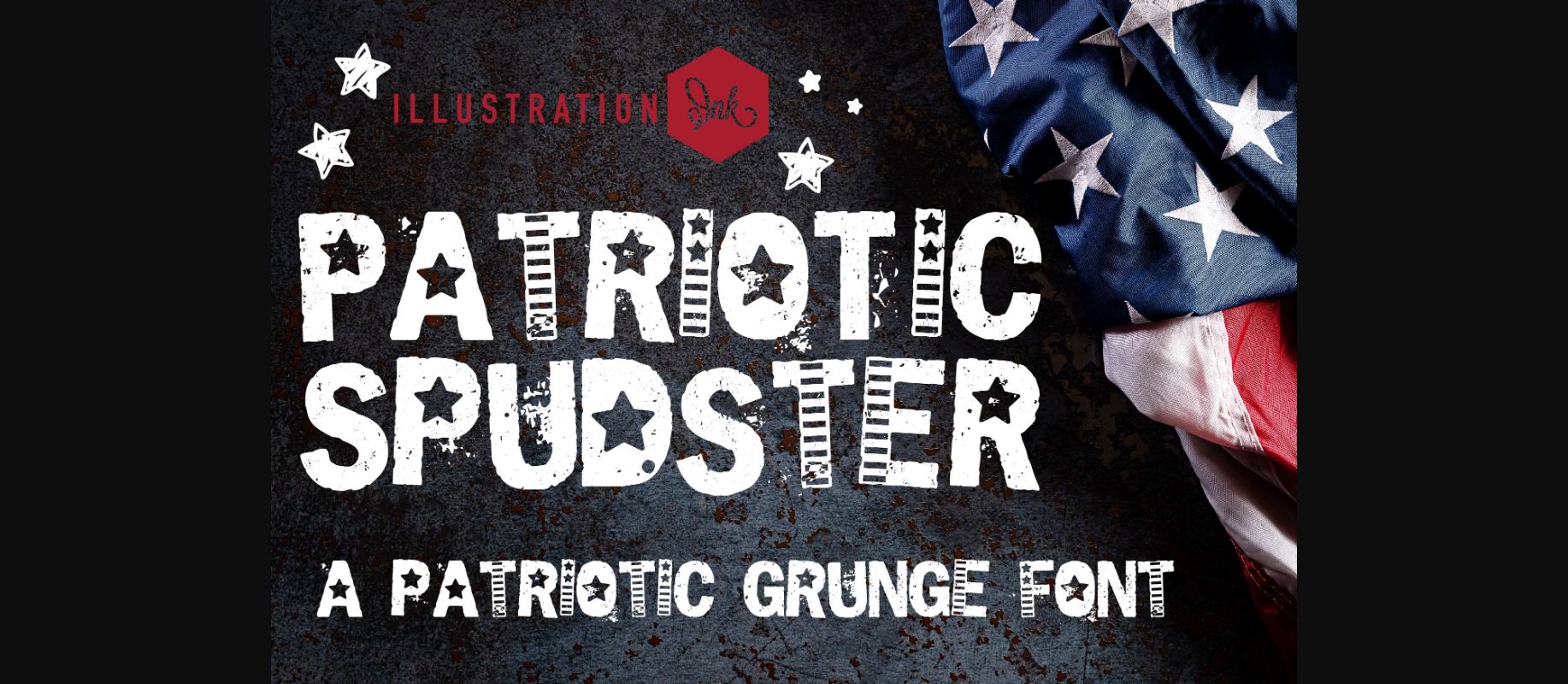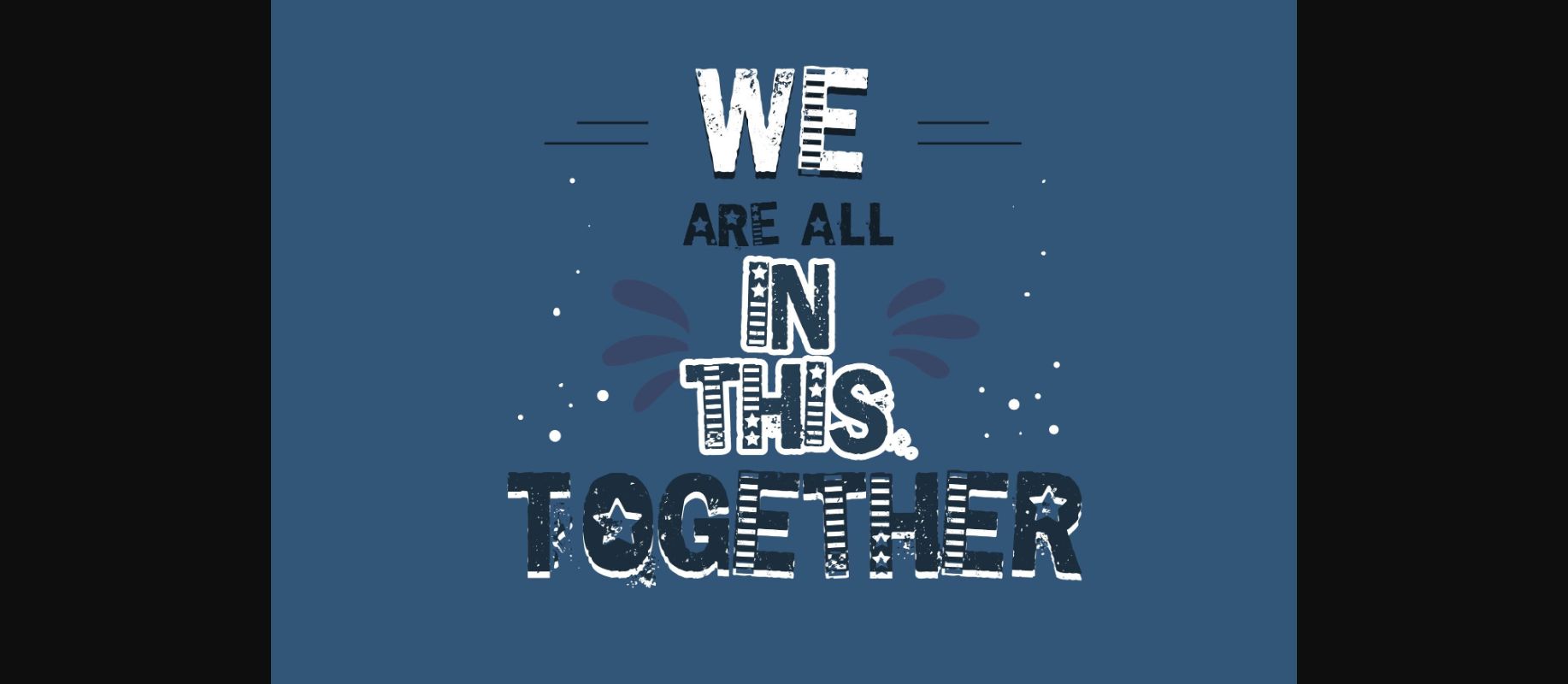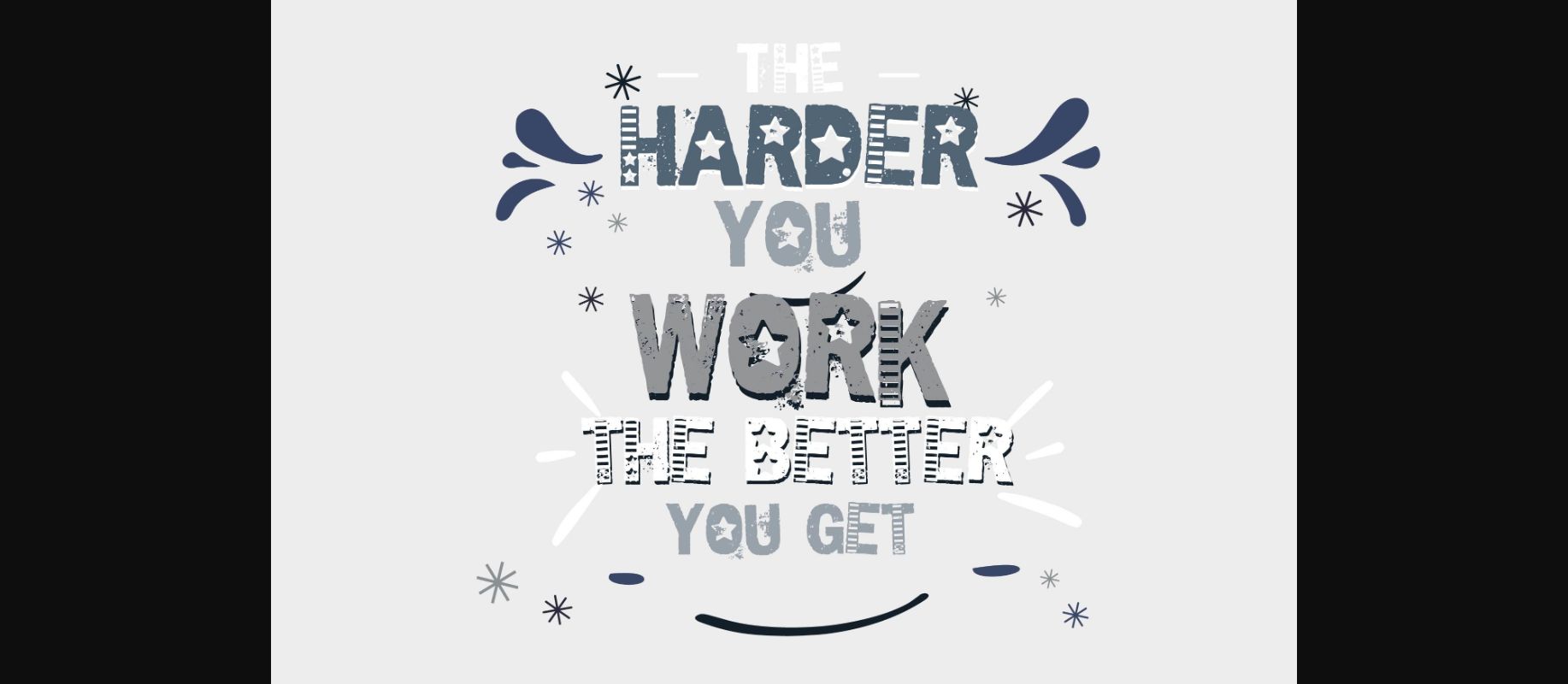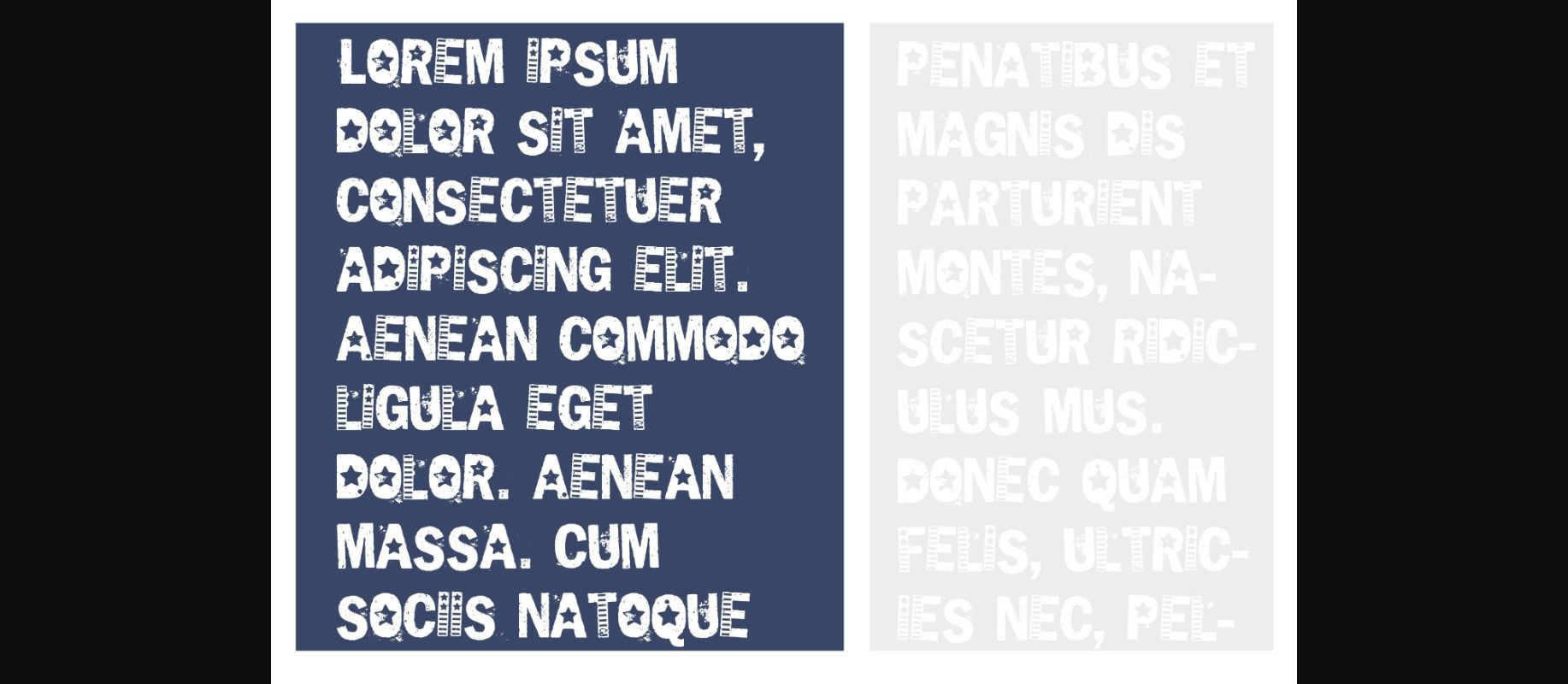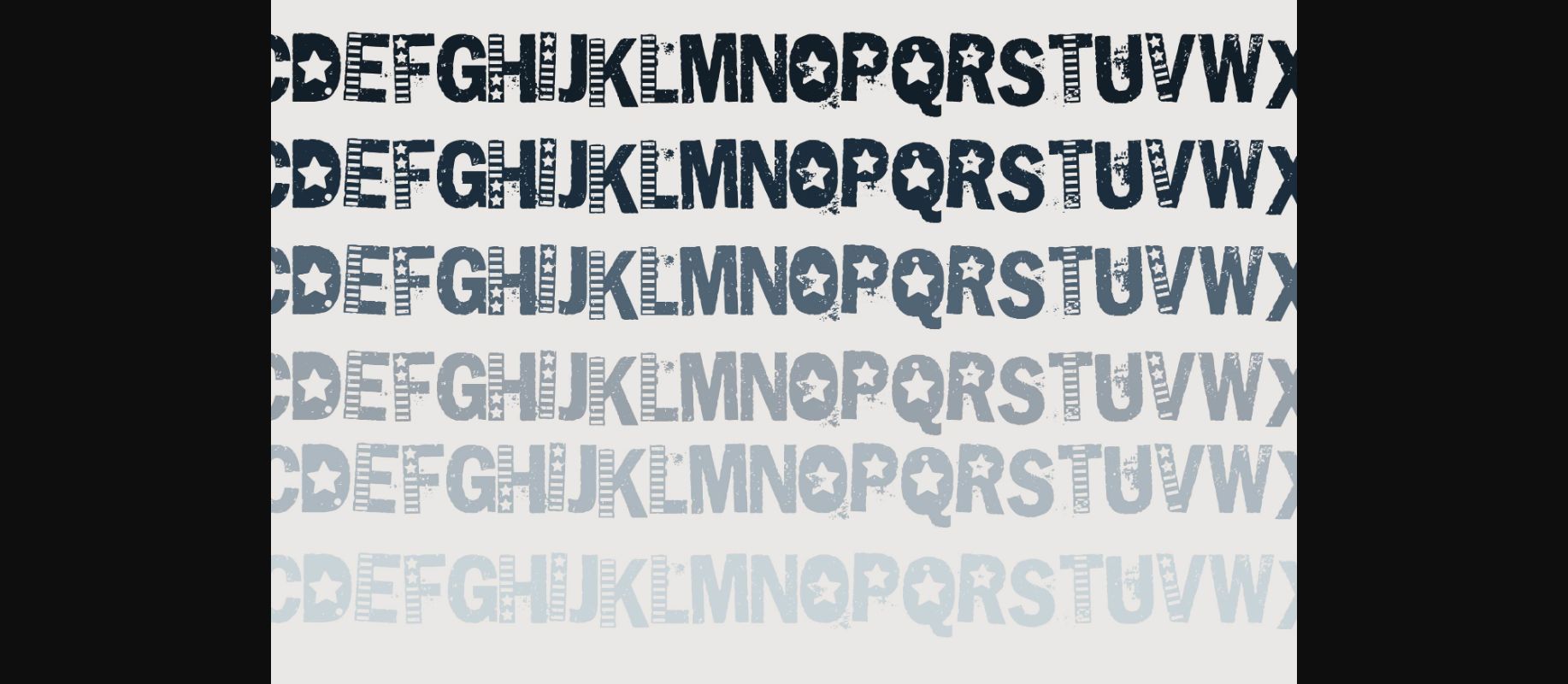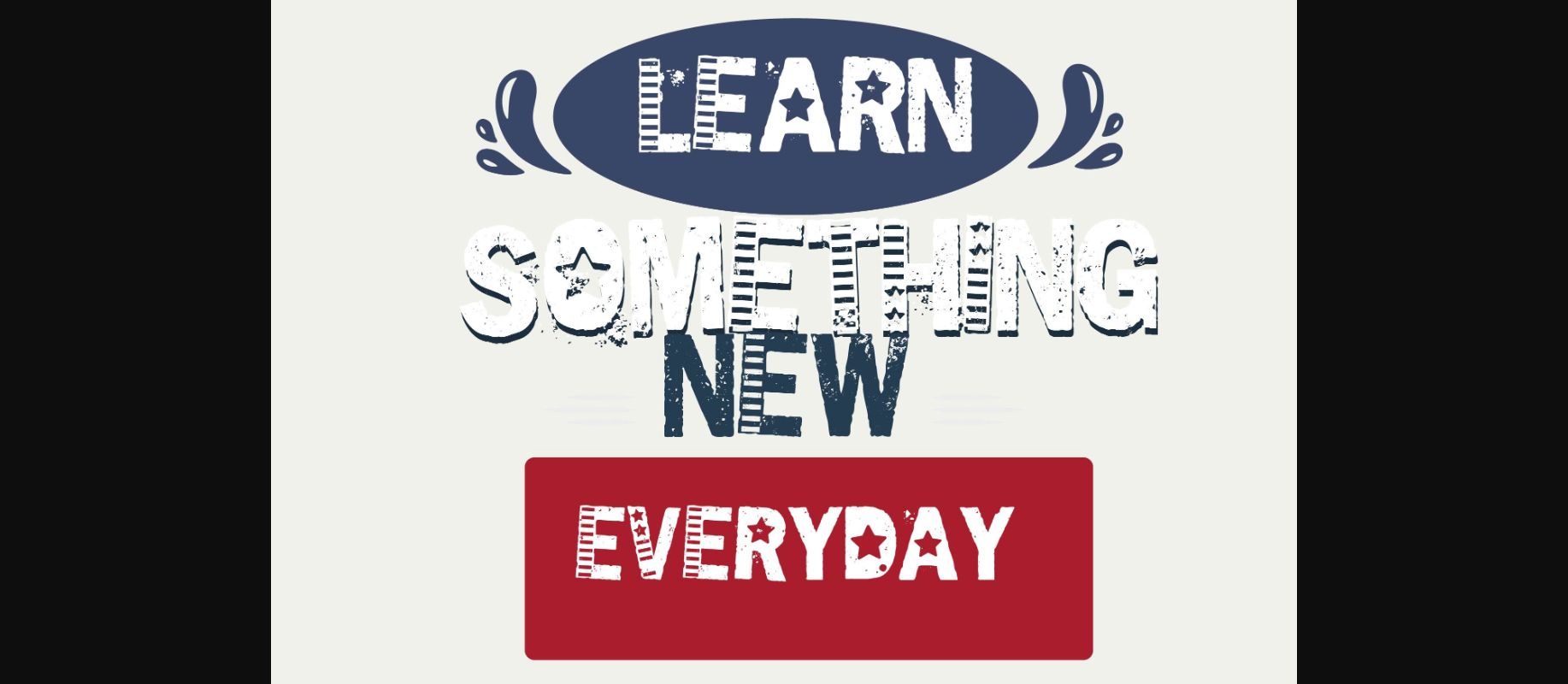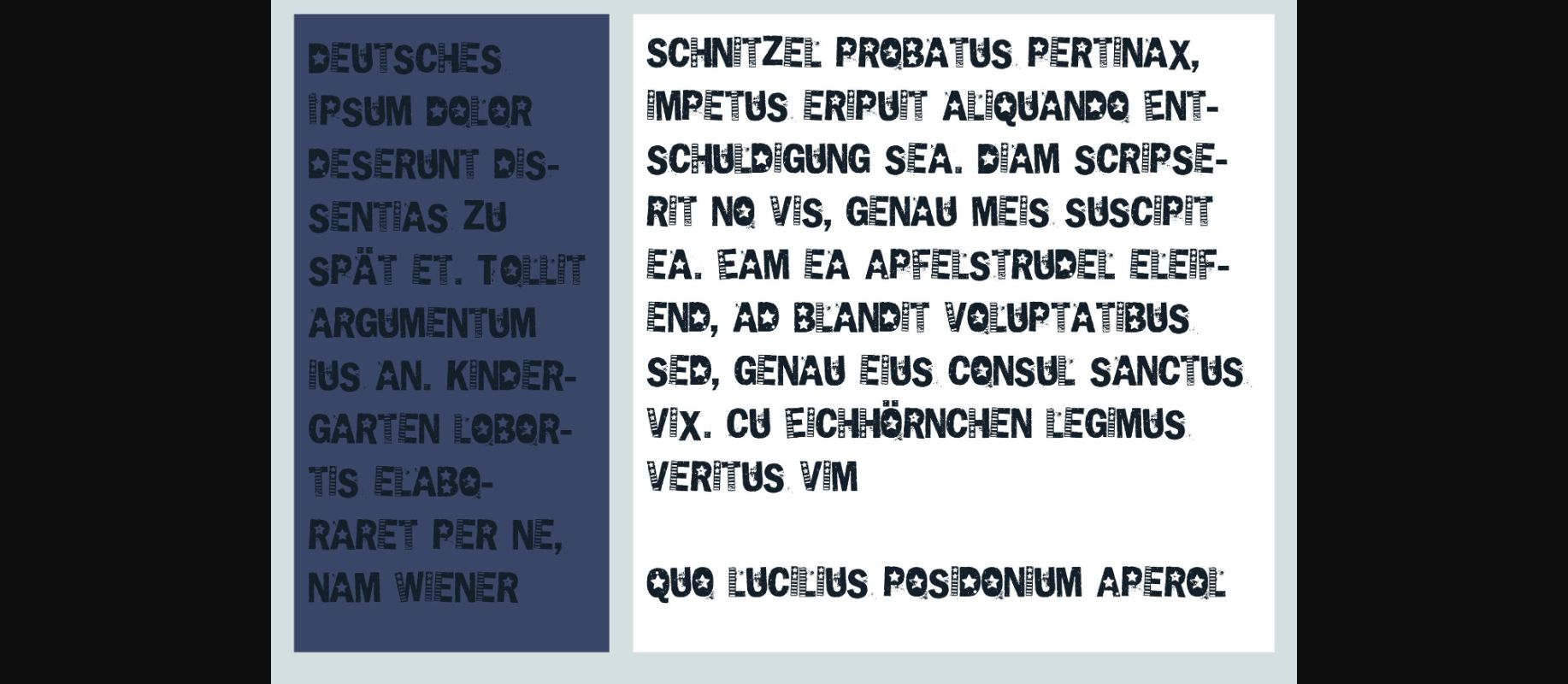
Patriotic Spudster Font
About Patriotic Spudster Font
The decorative font features an American flag motif that beautifully incorporates the iconic stars and stripes into the design of each letter. Each character is intricately crafted to evoke the patriotic spirit and symbolize the rich heritage and values associated with the United States.